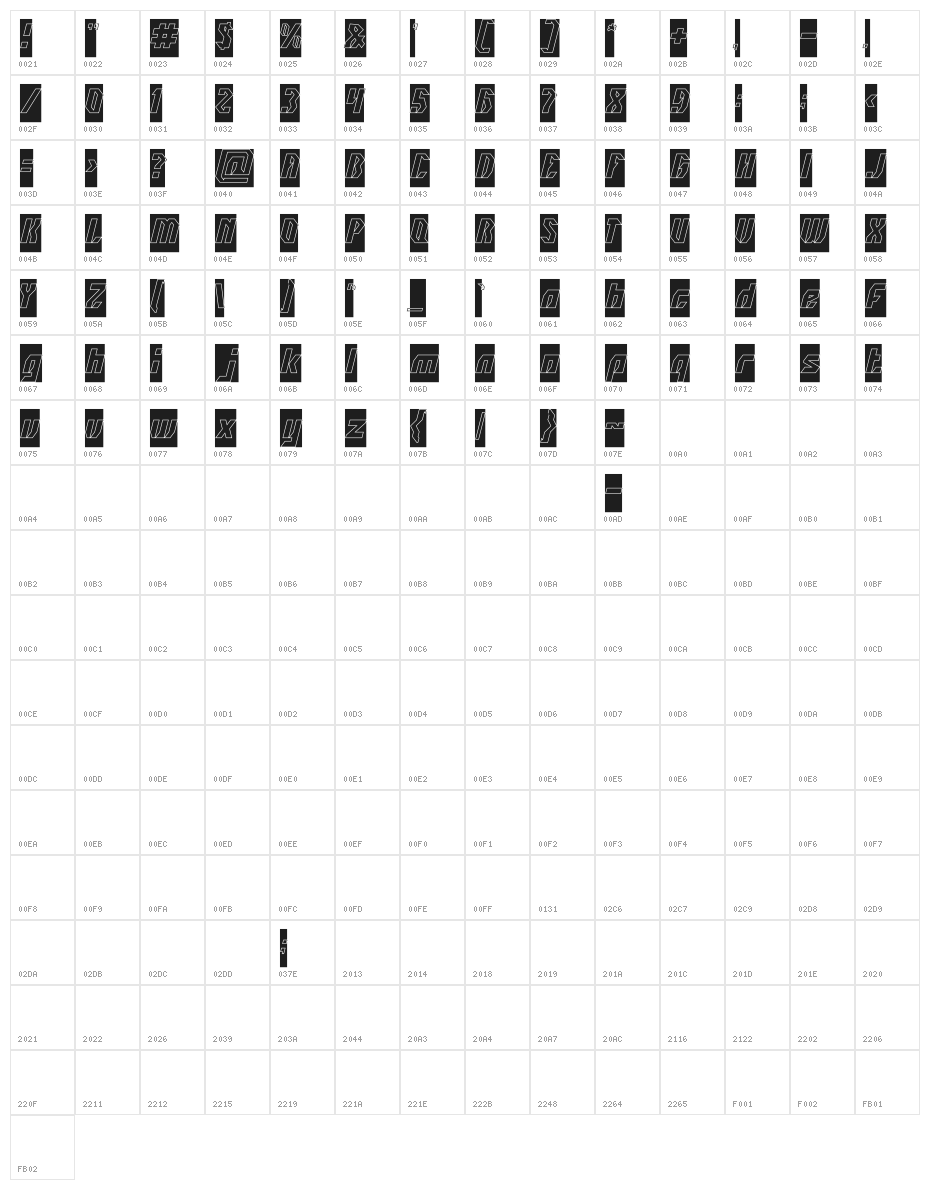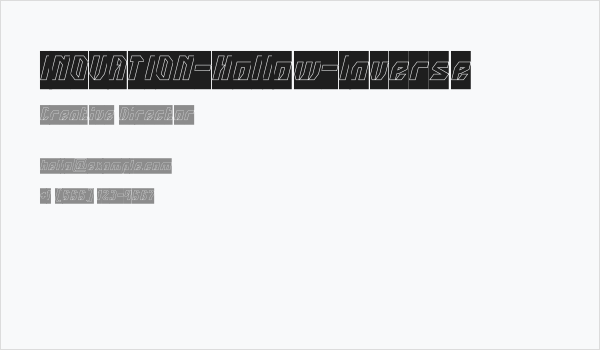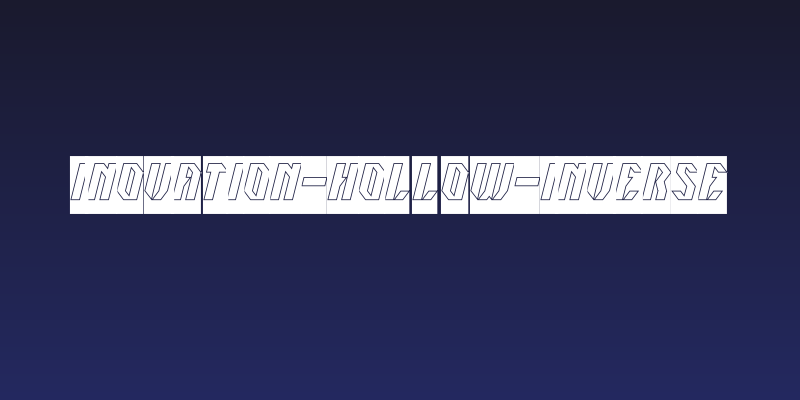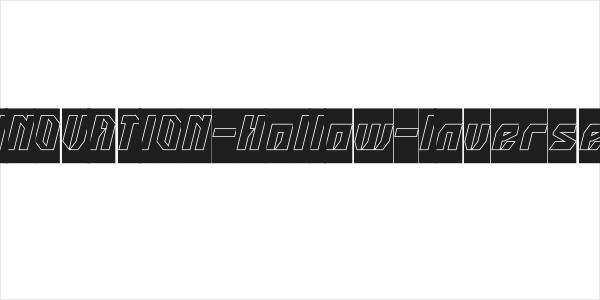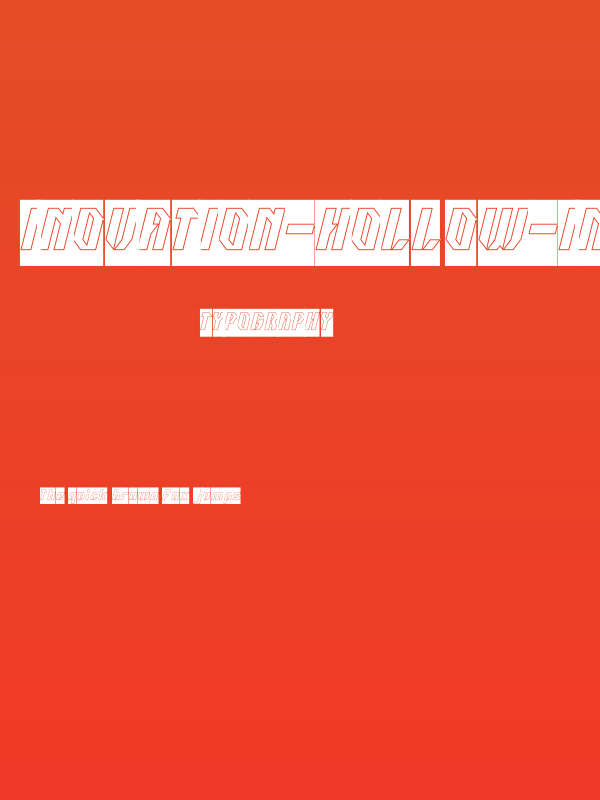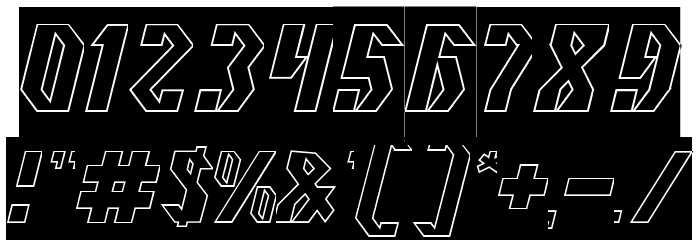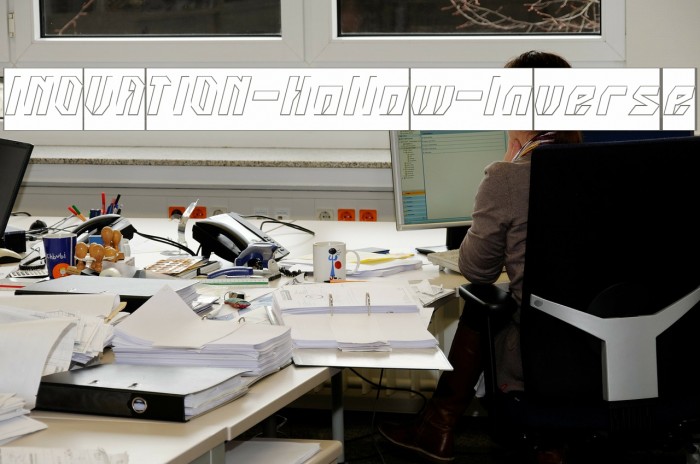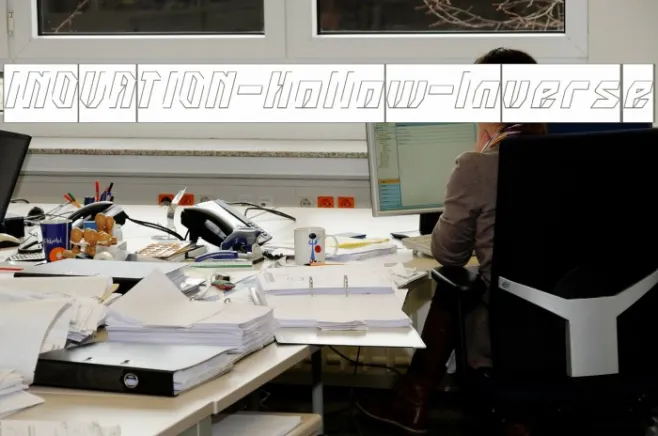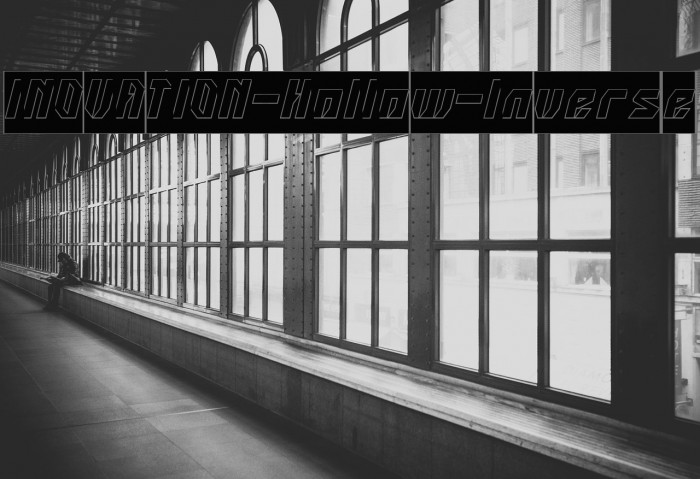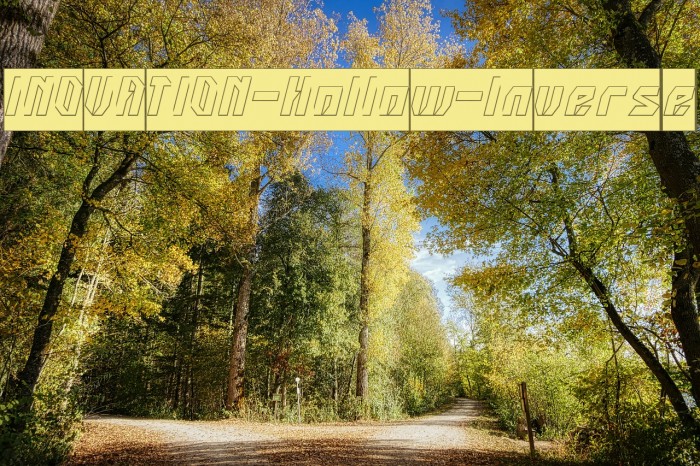
INOVATION-Hollow-Inverse Font
INOVATION-Hollow-Inverse Description
This font features a bold, hollow design with an inverse style, creating a striking and modern appearance. The characters are angular and geometric, with sharp edges and a futuristic look. The uppercase and lowercase letters maintain a consistent style, with a distinct hollow interior that adds depth and dimension. Numbers and special characters follow the same design principles, ensuring uniformity across all glyphs. The font's unique style makes it ideal for projects that require a bold statement or a modern, tech-inspired aesthetic.
| Proposed Projects | Ideal for tech-themed designs, futuristic branding, digital art, and modern posters. |